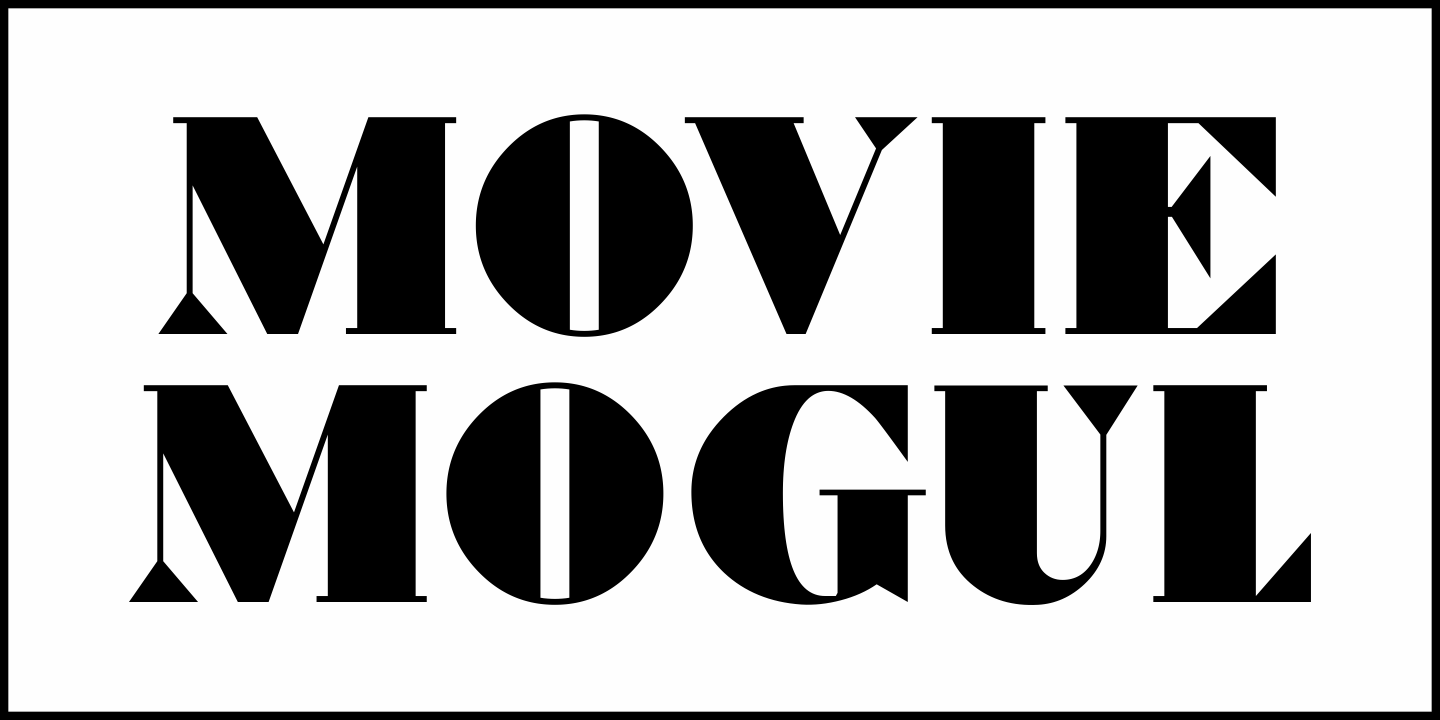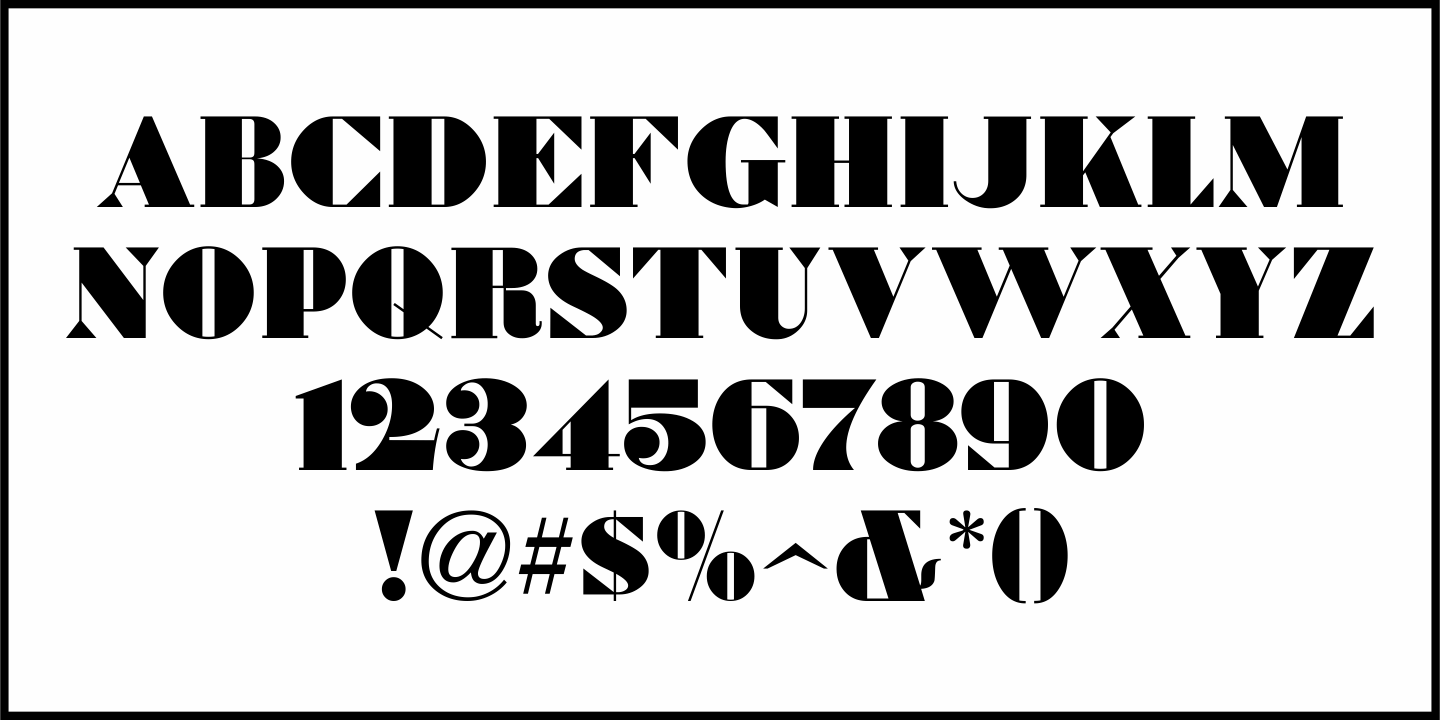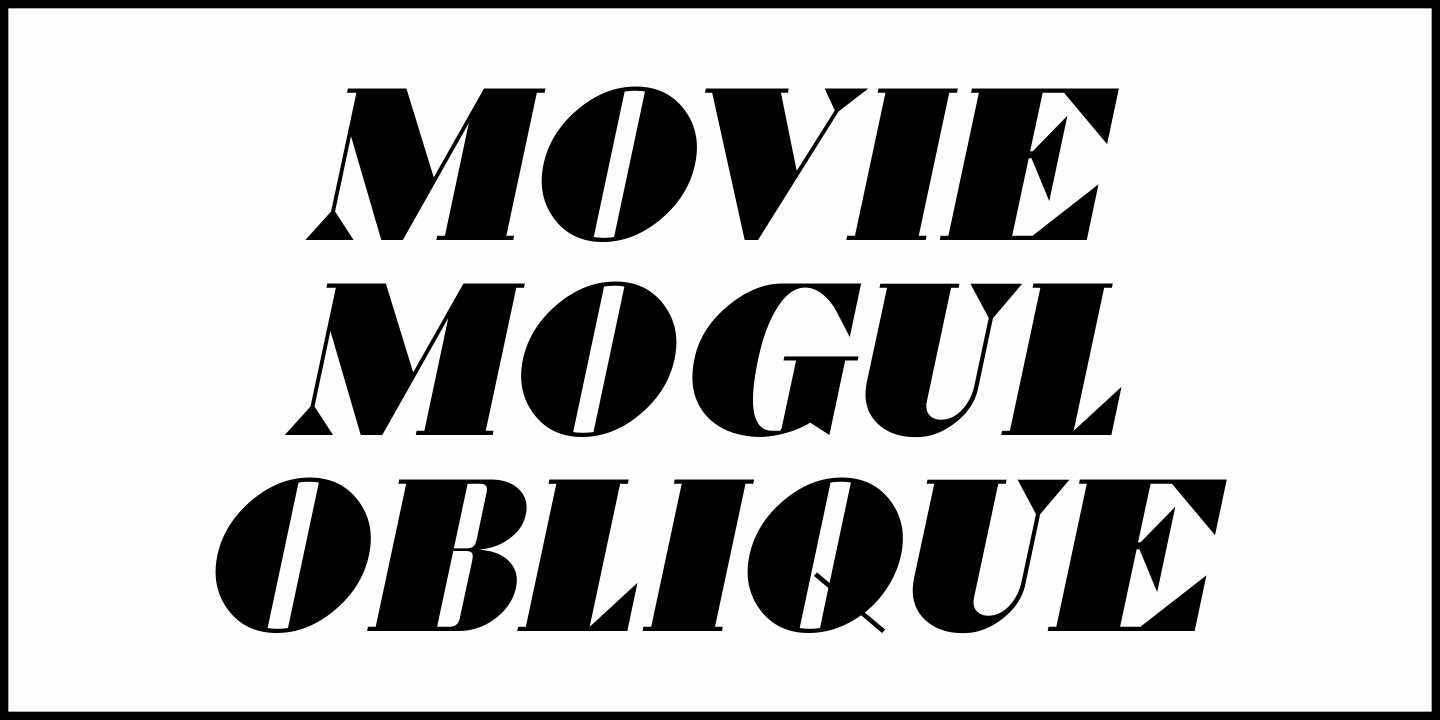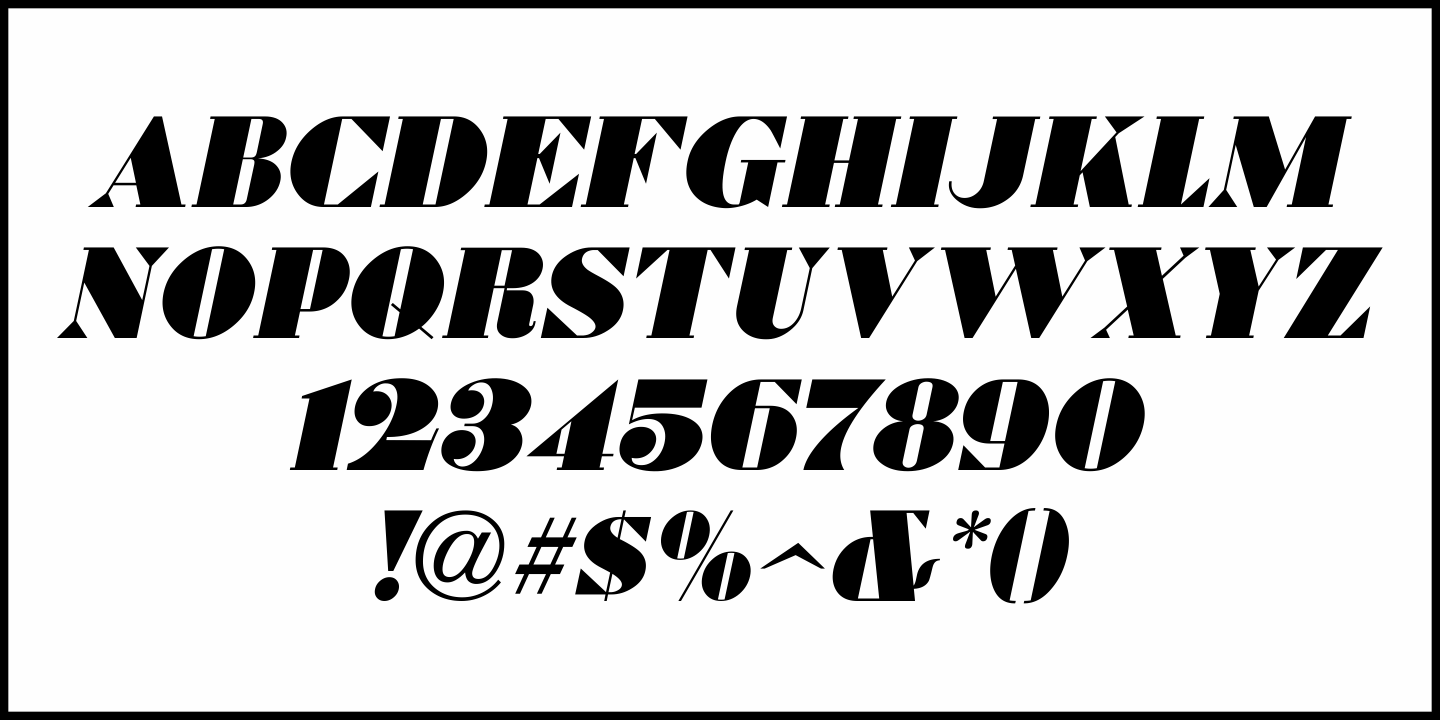
Movie Mogul
An ad for Paramount Pictures in the Dec. 8, 1928 issue of Motion Picture News offered up a hand lettered bit of ad copy in an extra bold serif design with Art Deco influences.
This now available as Movie Mogul JNL in both regular and oblique versions.